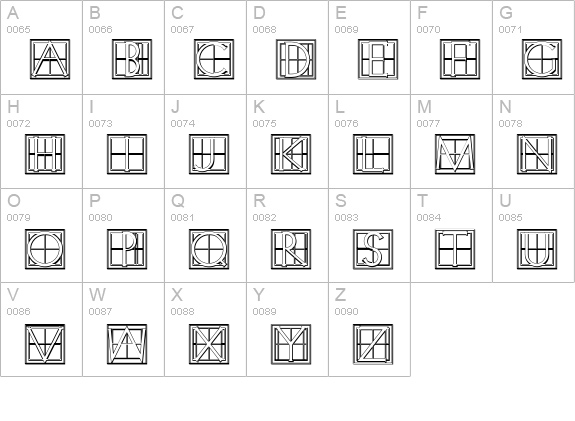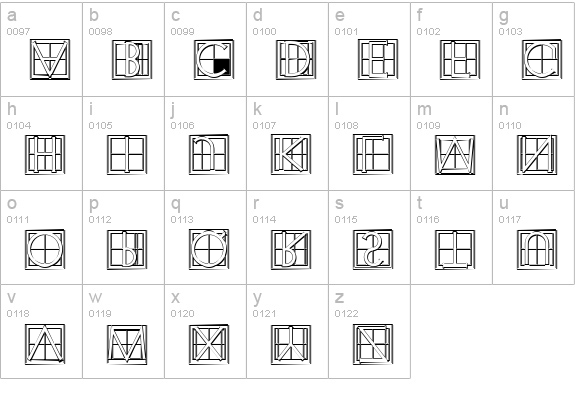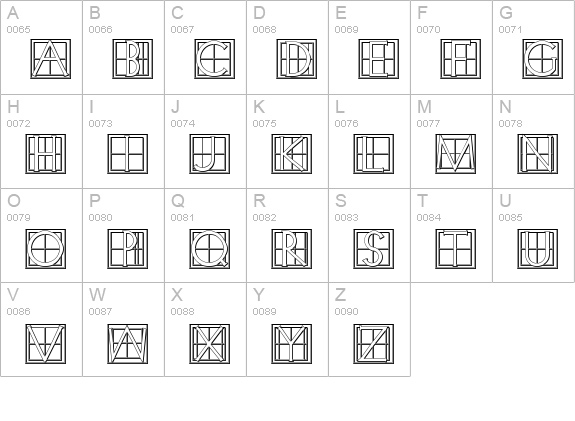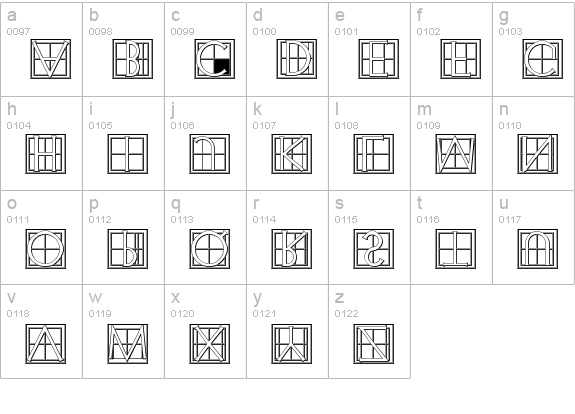
XperimentypoThree-C-Square Font Details
XperimentypoThree-C-Square font is a modern and versatile typeface that combines geometric shapes with a clean and minimalistic design. Its sleek lines and sharp angles give it a futuristic and tech-savvy appearance, making it perfect for a variety of design projects. This font exudes a sense of innovation and creativity, making it ideal for branding, advertising, and digital media. The XperimentypoThree-C-Square font is available for free download at FontsMarket.com, making it easily accessible for designers and creatives looking to add a unique touch to their work. With its bold and eye-catching style, this font is sure to make a statement and capture the attention of viewers. Whether used for headlines, logos, or digital displays, XperimentypoThree-C-Square is a versatile and dynamic font that is sure to enhance any design project.